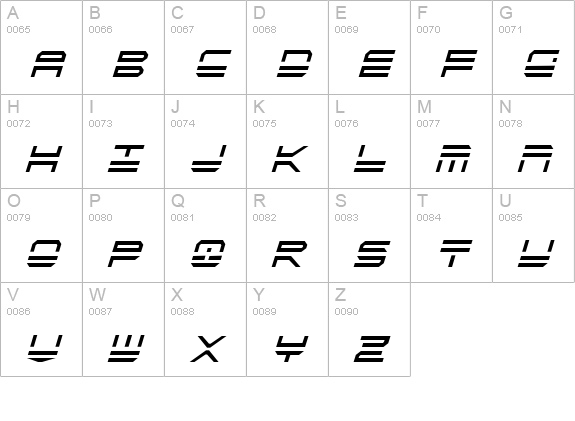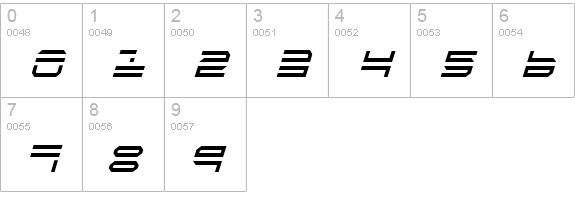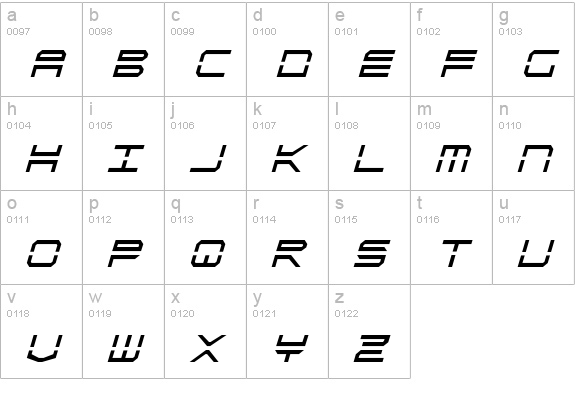
QuickStrike Italic Condensed is a distinctive, condensed-width, italic variant in the QuickStrike typeface family \xE2\x80\x94 well suited to design and typography projects.
Introducing QuickStrike Italic Condensed, a stunning font that exudes elegance and sophistication. This font is the perfect choice for those seeking a sleek and modern design with a touch of artistic flair. The condensed style adds a unique and captivating element to any project, making it ideal for headlines, titles, and branding. QuickStrike Italic Condensed is crafted with utmost precision, ensuring each character is meticulously designed to perfection. Its italicized form adds a dynamic and expressive touch, allowing for seamless integration into various creative endeavors. Whether used in print or digital media, this font will effortlessly captivate the audience and leave a lasting impression. One of the most appealing aspects of QuickStrike Italic Condensed is that it is freely available to download at FontsMarket.com. This means that designers and enthusiasts can access this exceptional font without any cost. Such accessibility enables a wider range of creatives to incorporate this font into their projects, enhancing their visual storytelling with its distinctive aesthetic. With its clean lines, subtle curves, and impeccable legibility, QuickStrike Italic Condensed is a versatile font that can be utilized across a multitude of design applications. From sleek corporate presentations to eye-catching advertisements, this font will elevate the visual impact of any project. Embrace the power of QuickStrike Italic Condensed and unleash your creativity. Download this font today at FontsMarket.com and experience the seamless blend of style and functionality that this remarkable typeface offers.